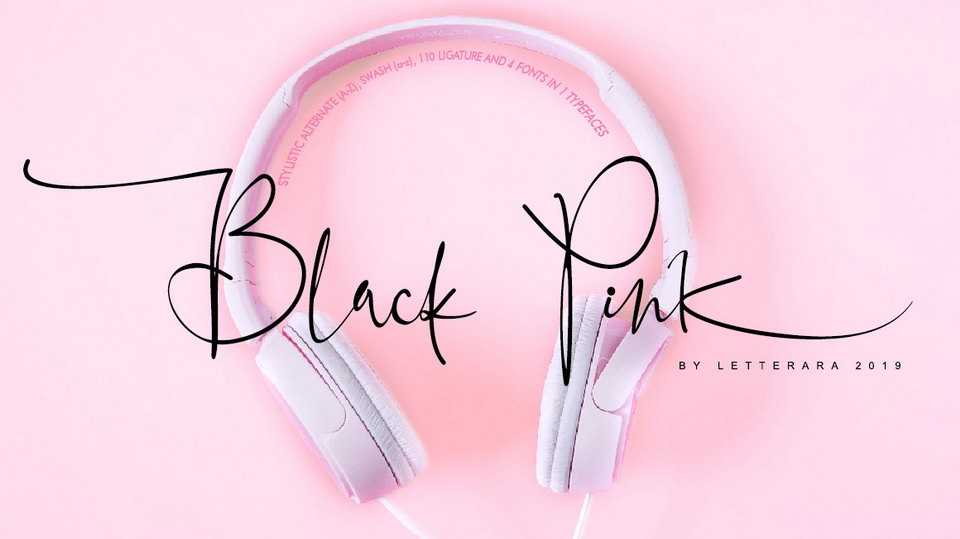
Download Black Pink Signature font – a beautiful modern calligraphy script. It was created to look as close to a natural handwritten script as possible by including 110 ligatures.
Designer: Thomas Aradea